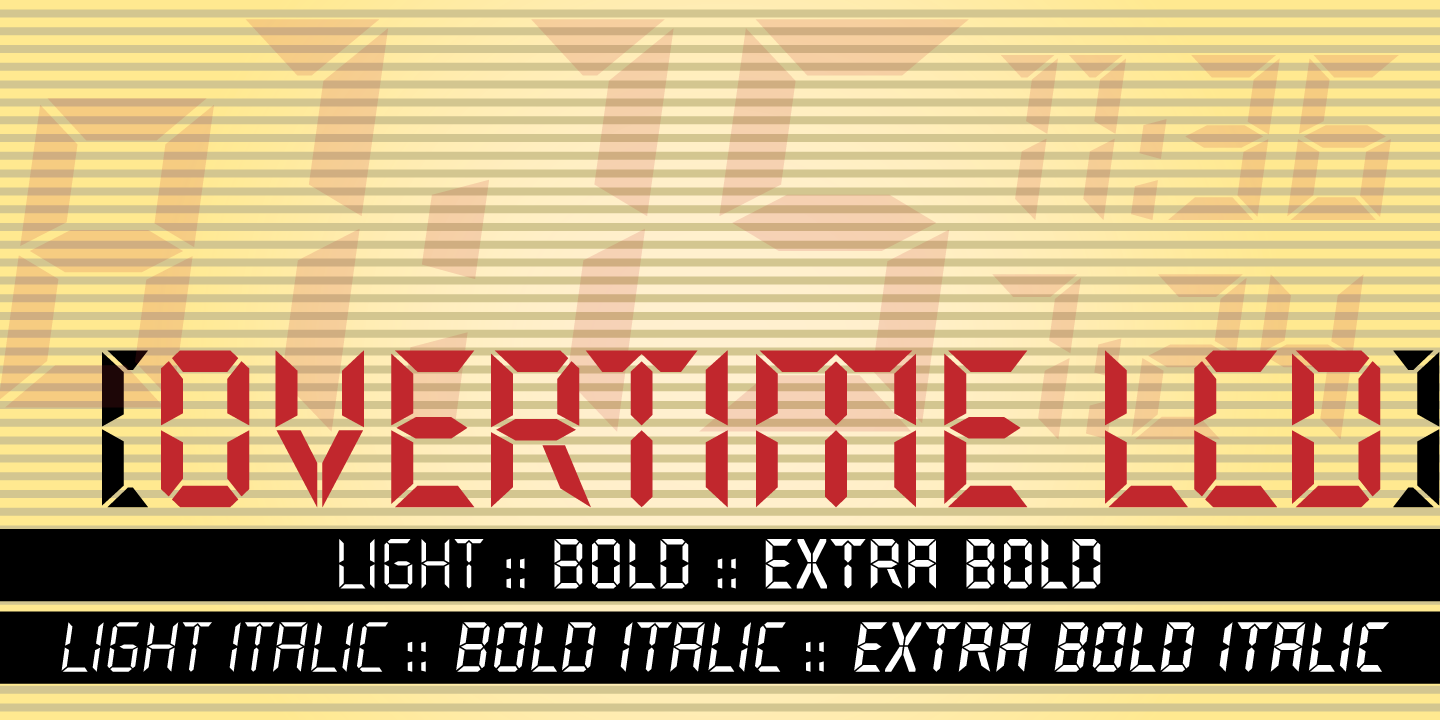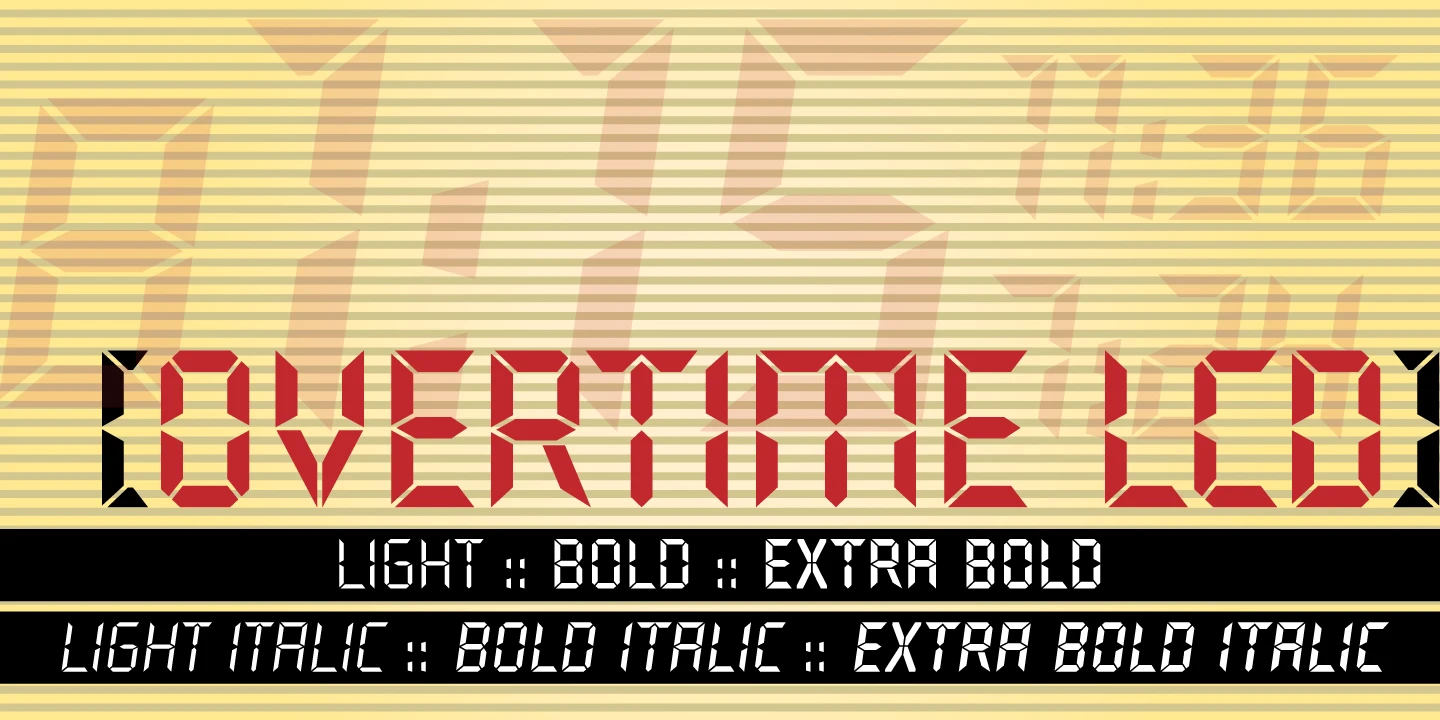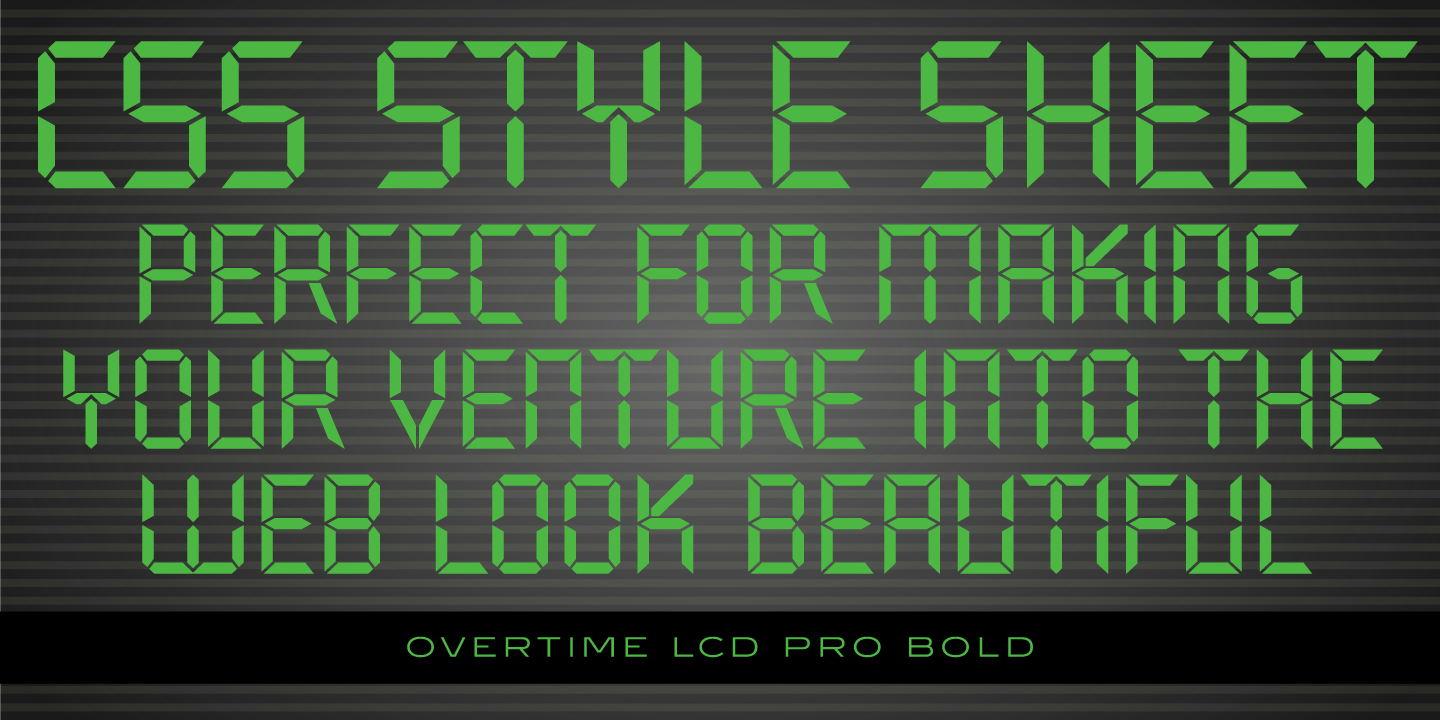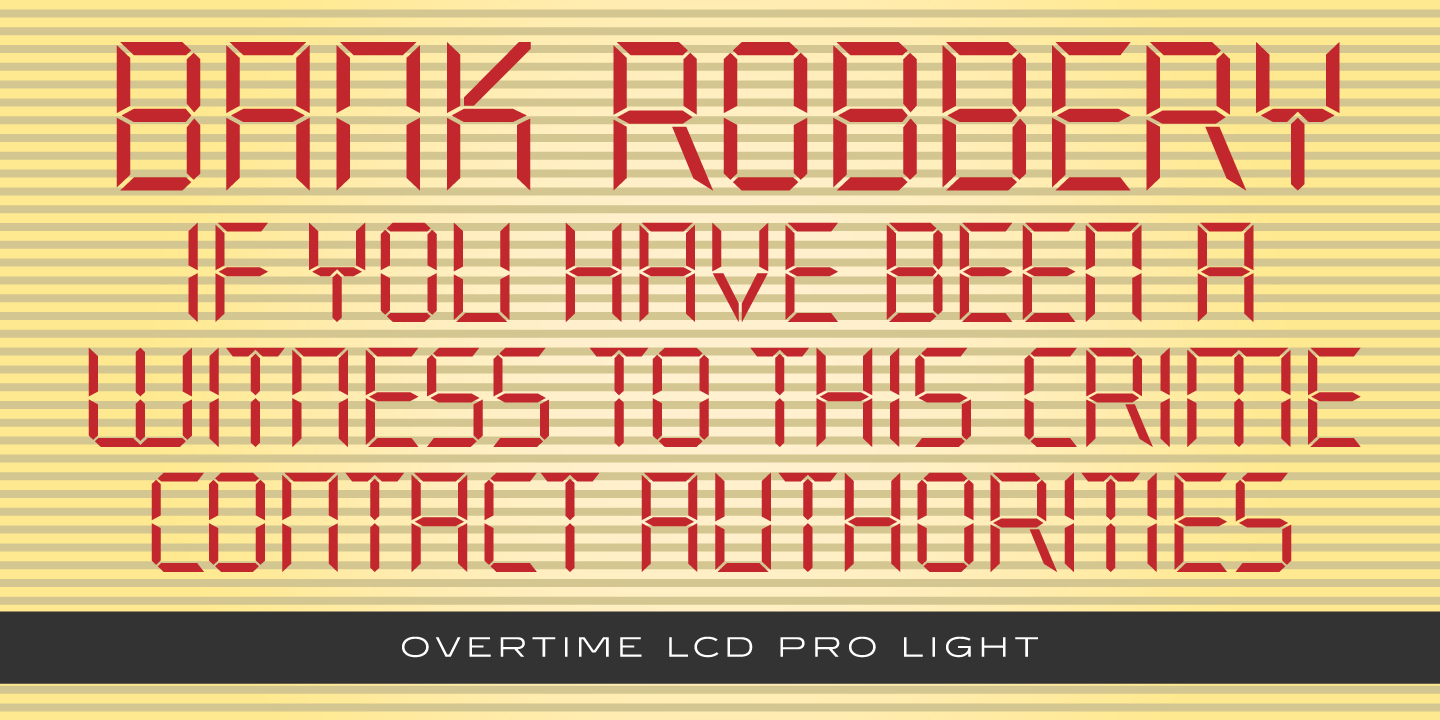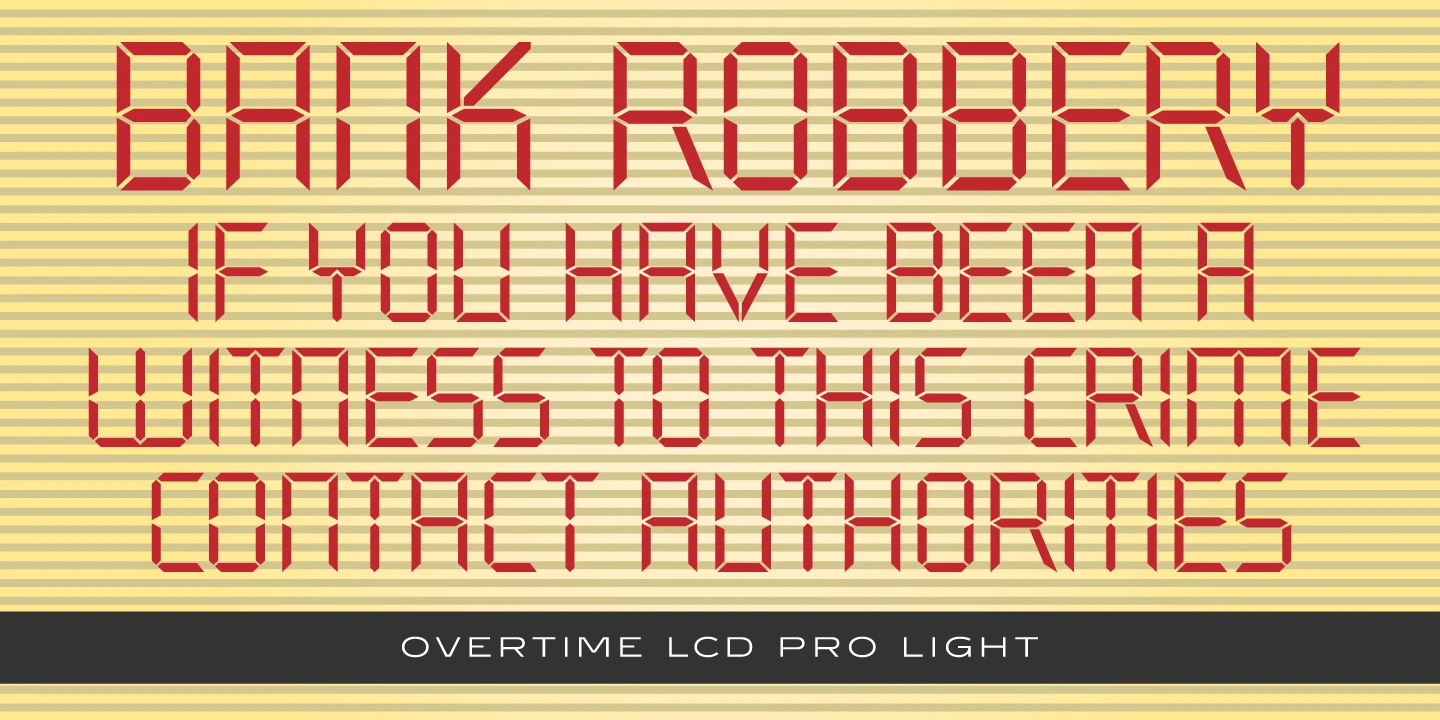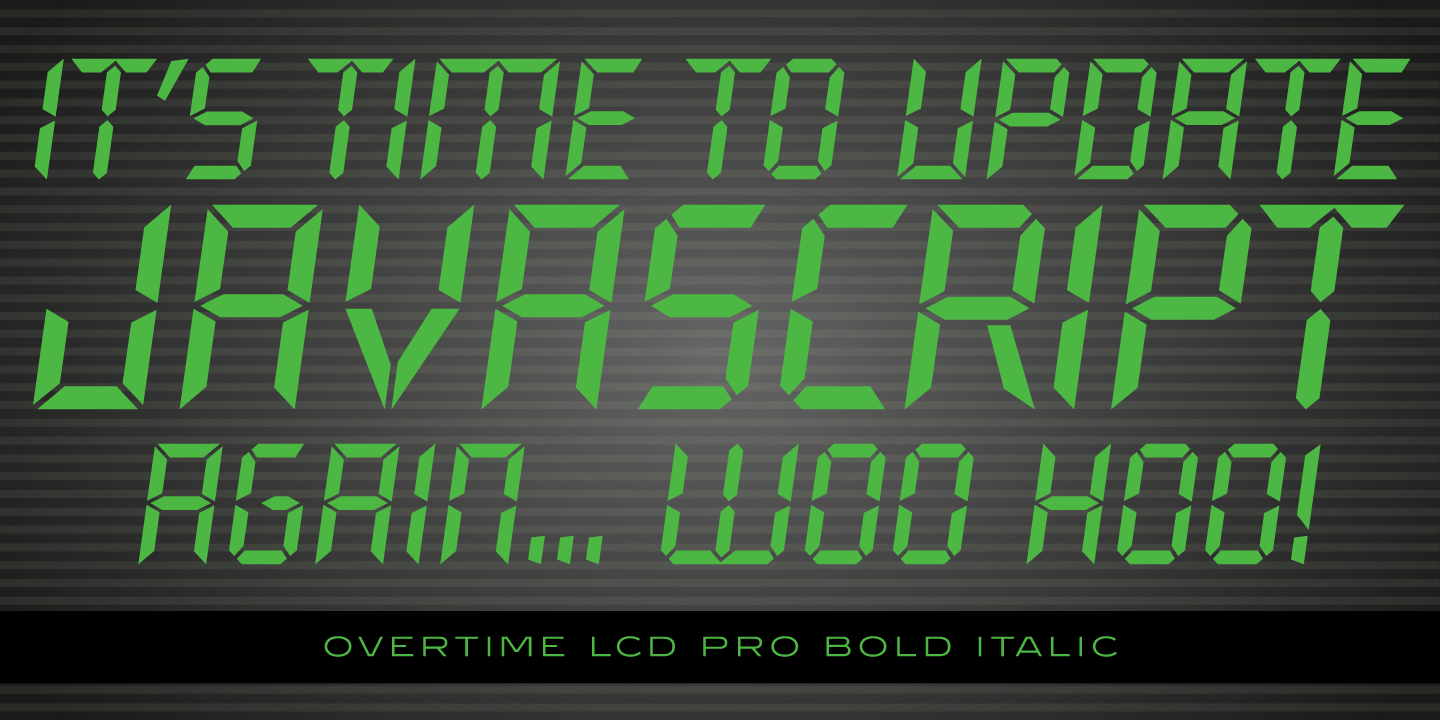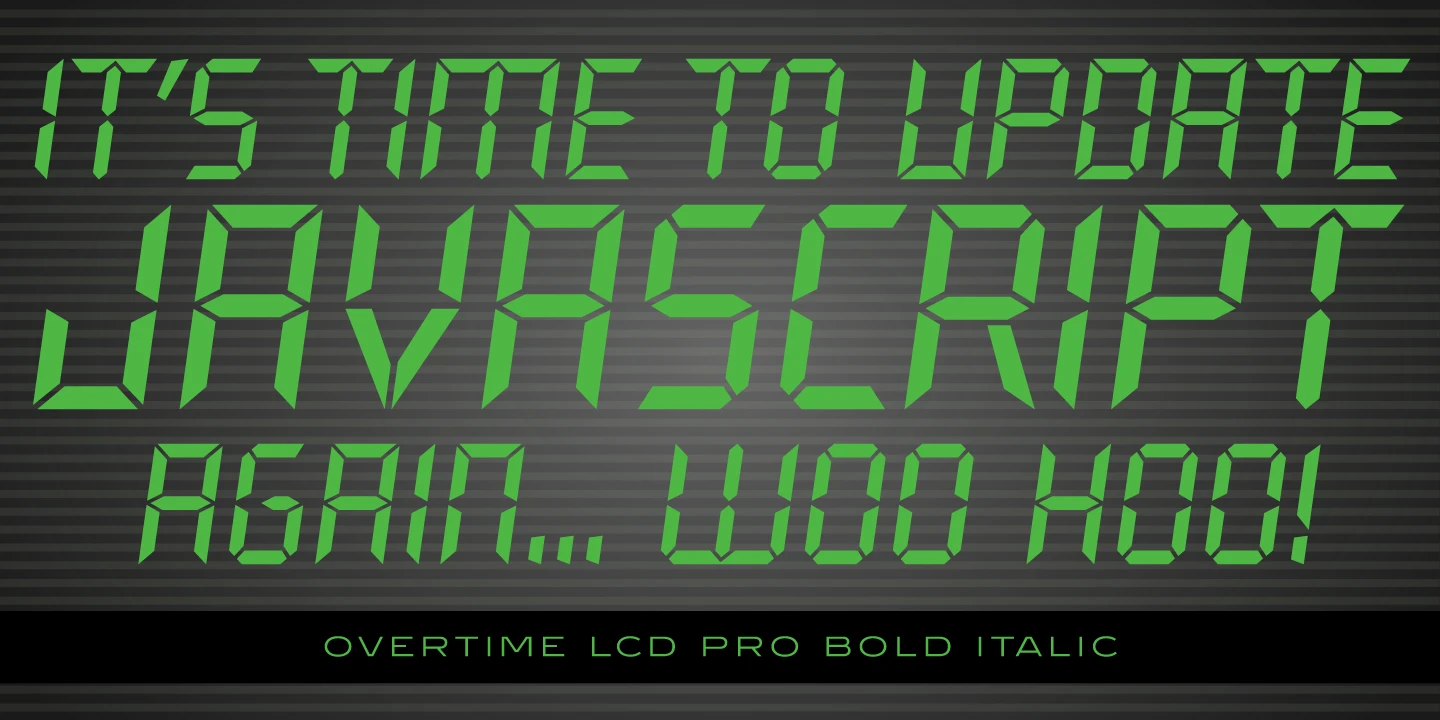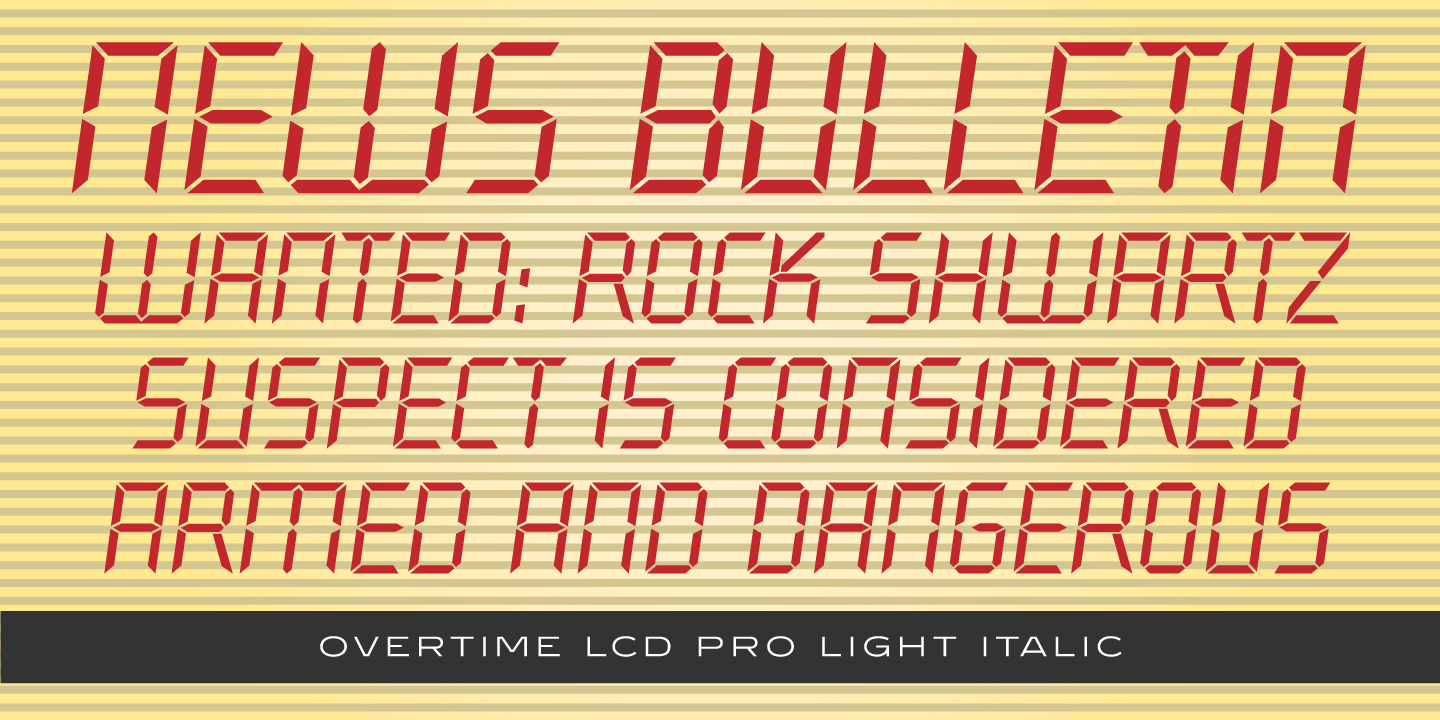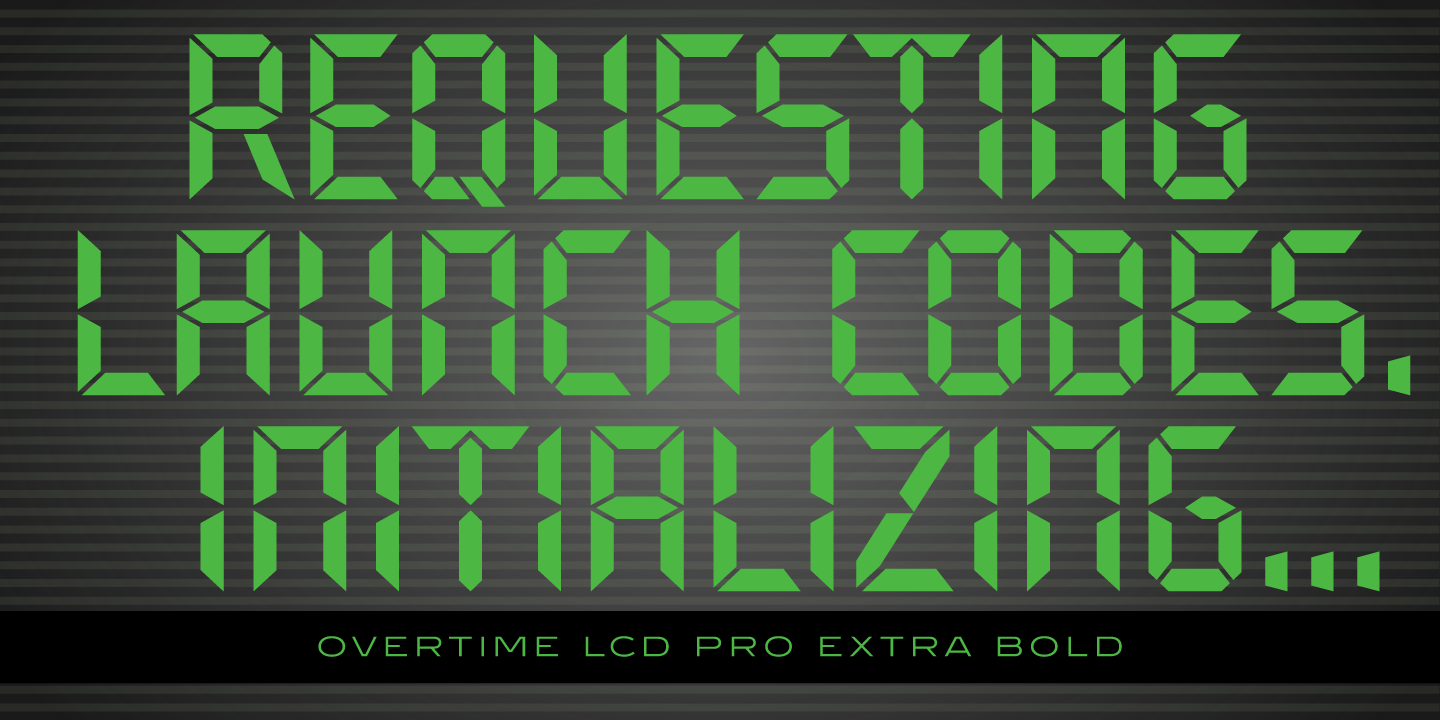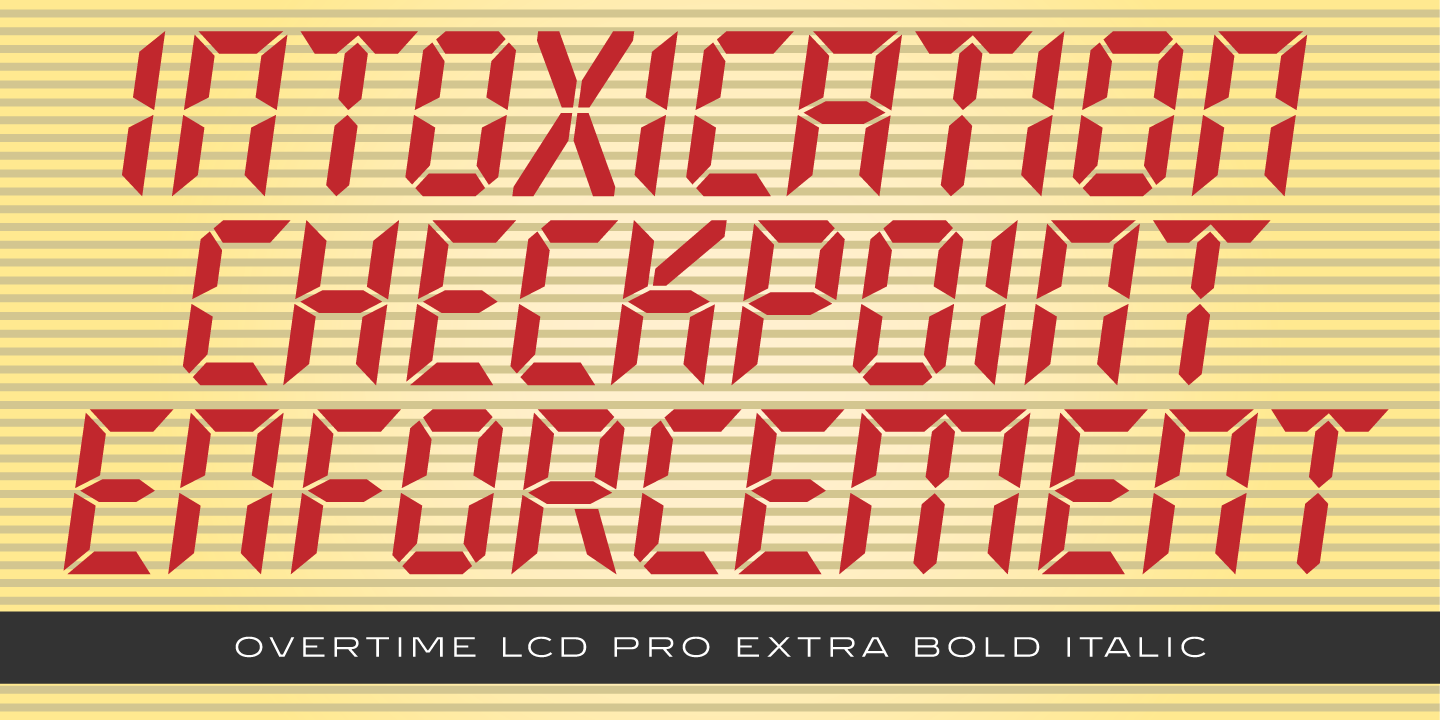
Overtime LCD Font Family
Overtime LCD is a decorative typeface that replicates the pixelated appearance of older liquid crystal displays. It draws inspiration from an Adrian Williams design. Steve Jackaman added new weights It is available in three weights along with matching italics, making it a versatile choice for designers. This typeface is ideal for simulating electronic displays, digital clocks, and creating album covers, book jackets, club flyers, product packaging, or any project that requires a vintage digital aesthetic. Treat it like a puzzle and get creative! Break it apart to design unique word shapes for clever typographic lockups. Remember, time is of the essence!